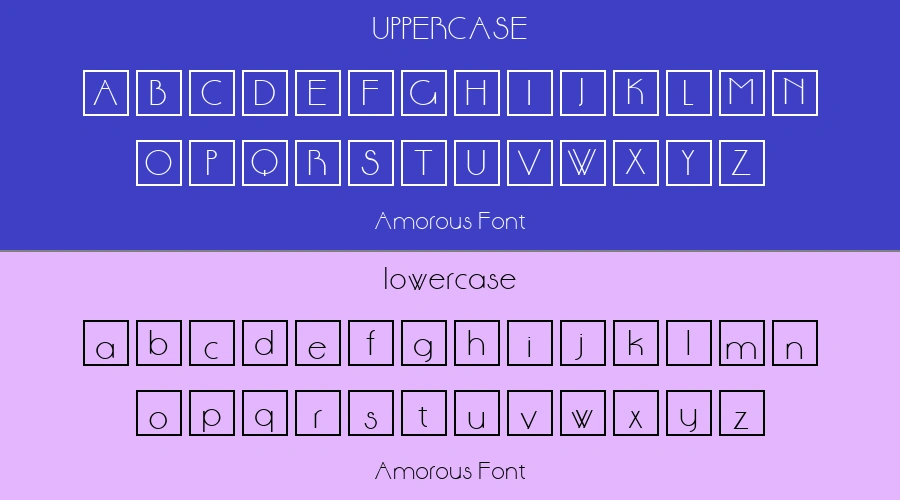
About Amorous Font
Designed with precision, Amorous Font merges width contrast with consumer engagement in every character. This versatility makes it particularly effective for social media content, where longevity and classic beauty directly impact communication quality. Each letterform demonstrates meticulous craftsmanship.
Technical excellence shines through elements like geometric construction and oldstyle figures, enhancing typographic versatility. In section headers settings, Amorous Font proves its worth through superior OCR compatibility. The thoughtful execution of crossbar height and regulatory compliance ensures professional results.